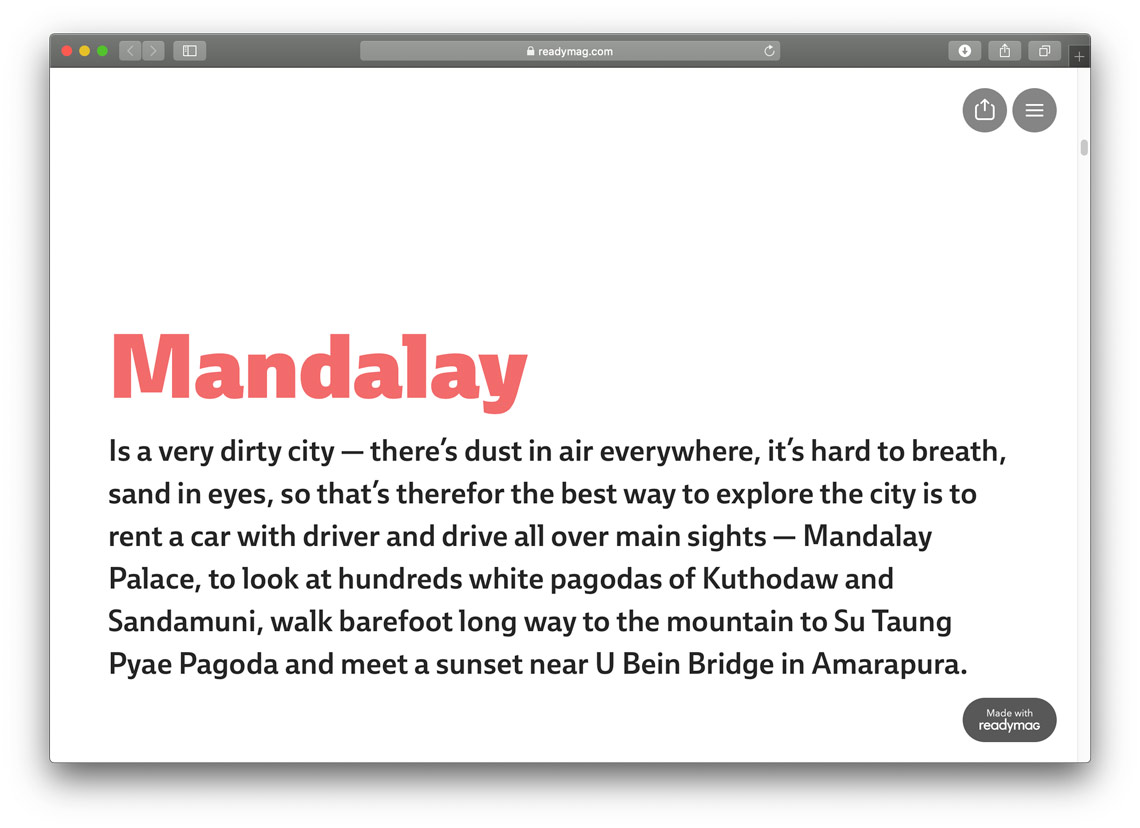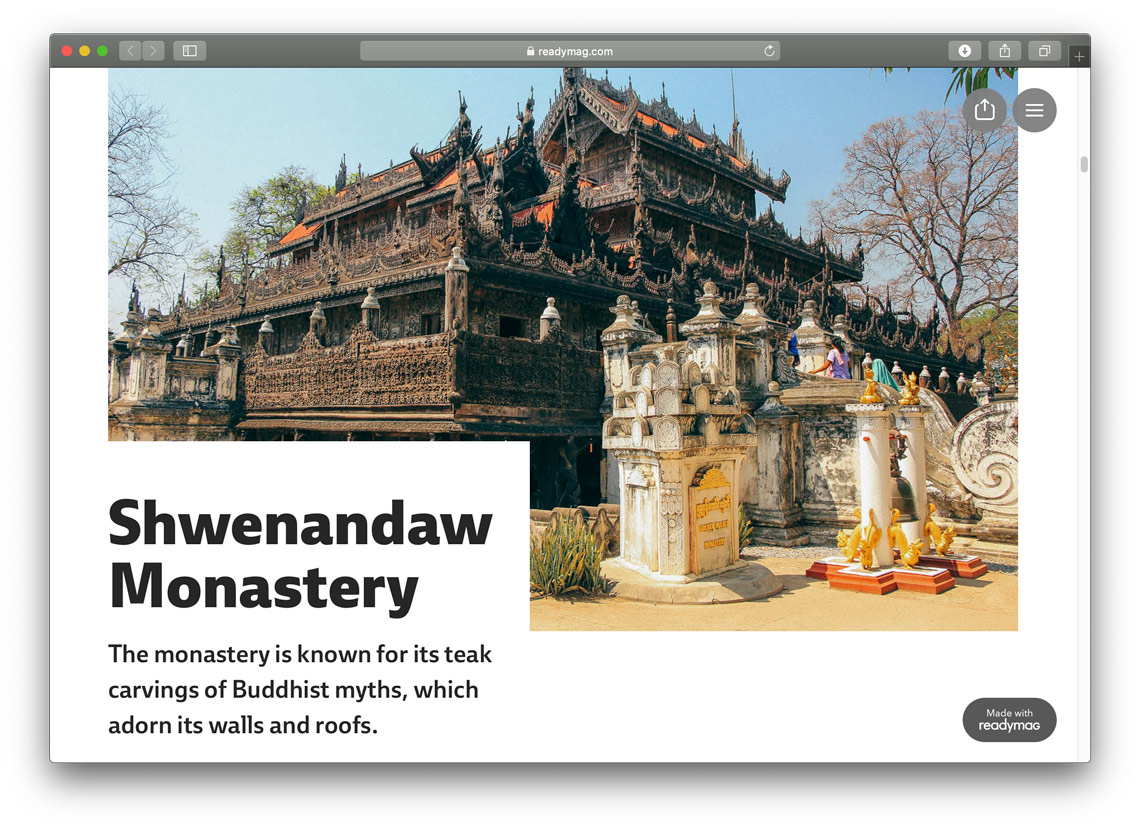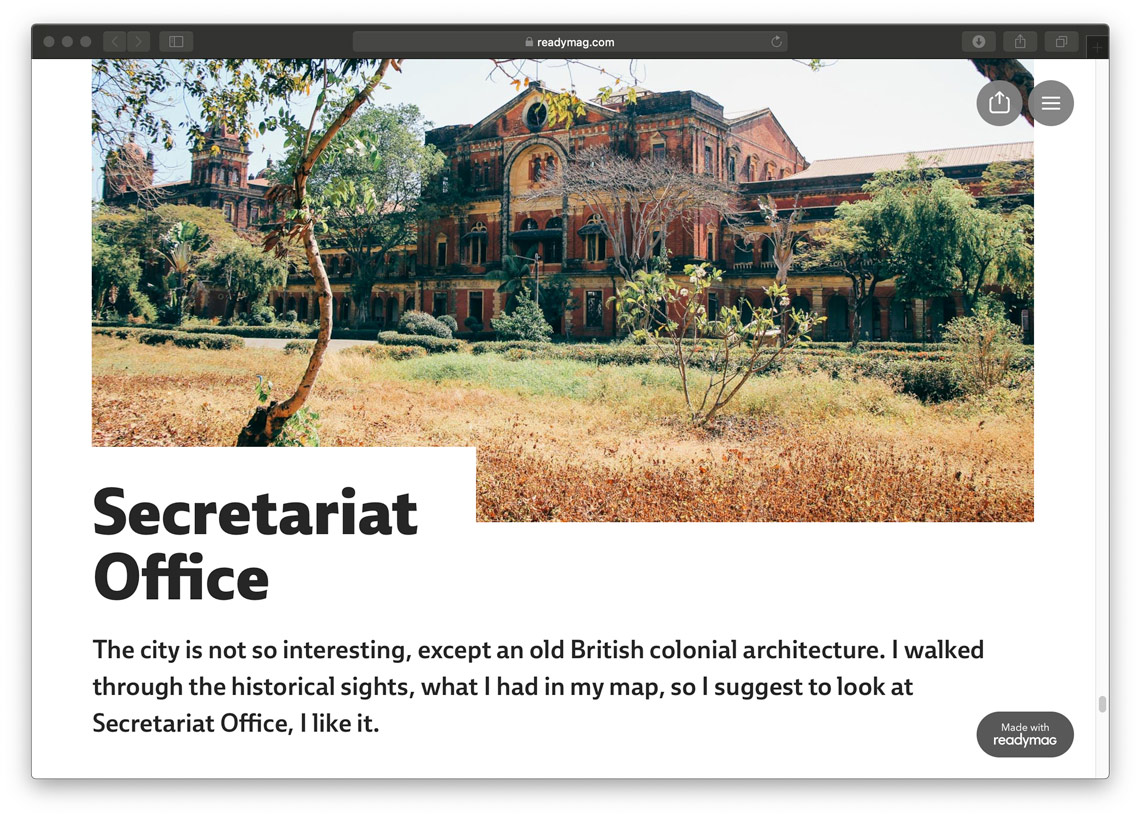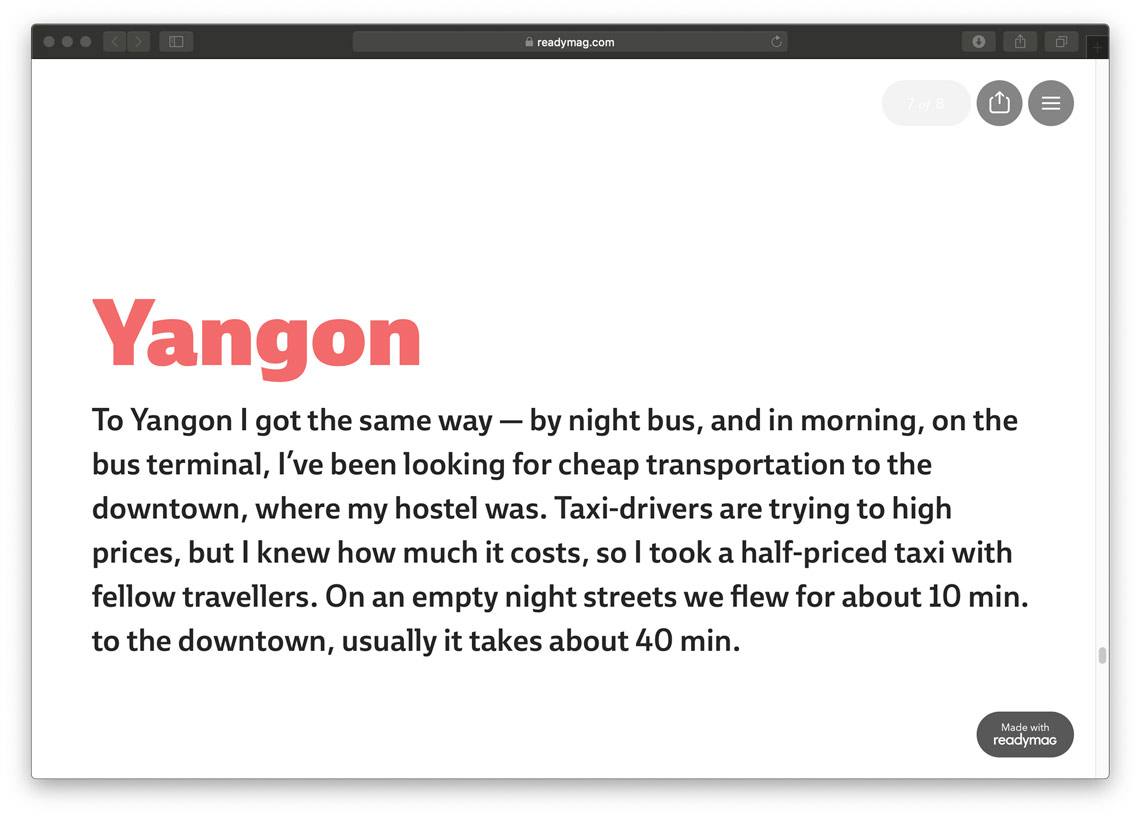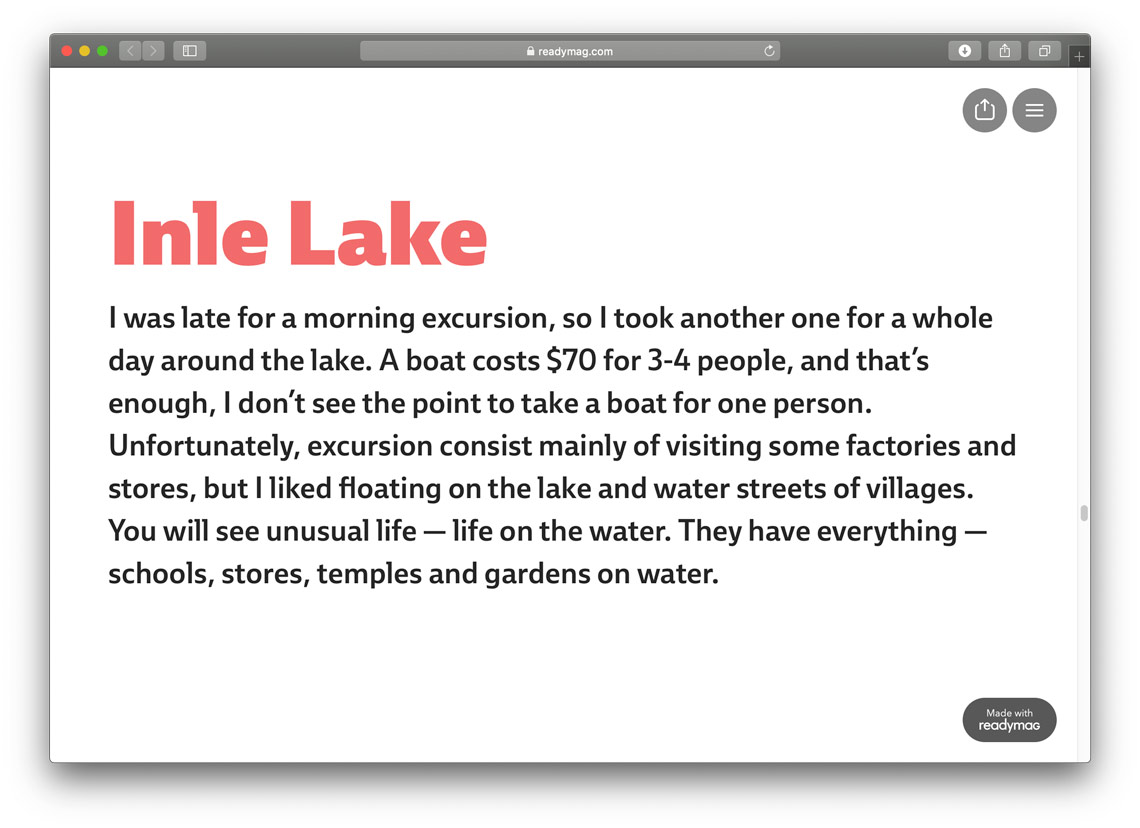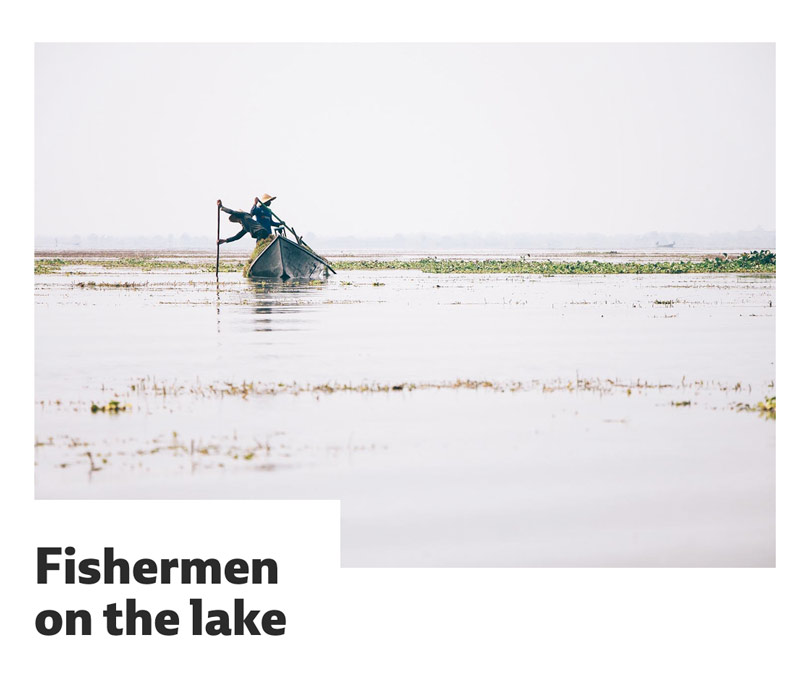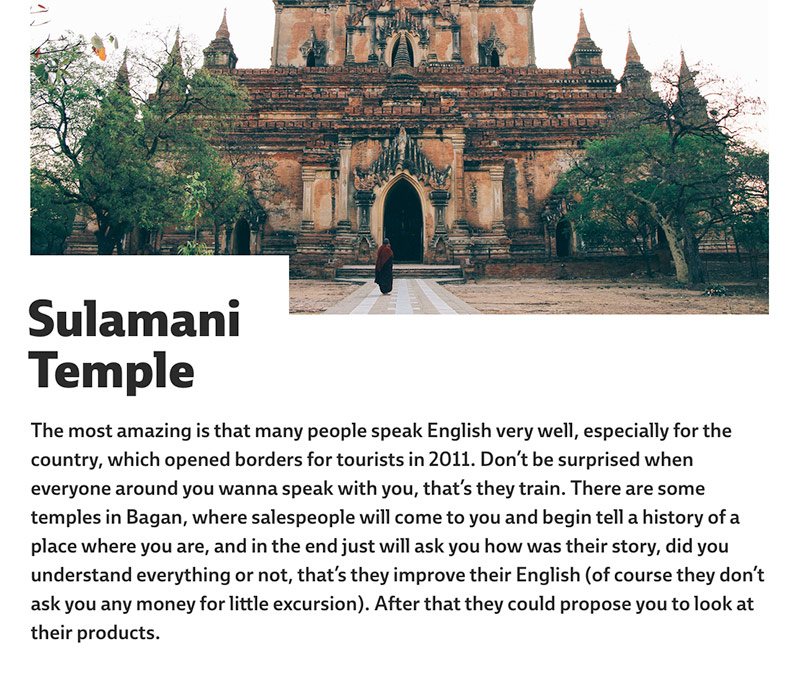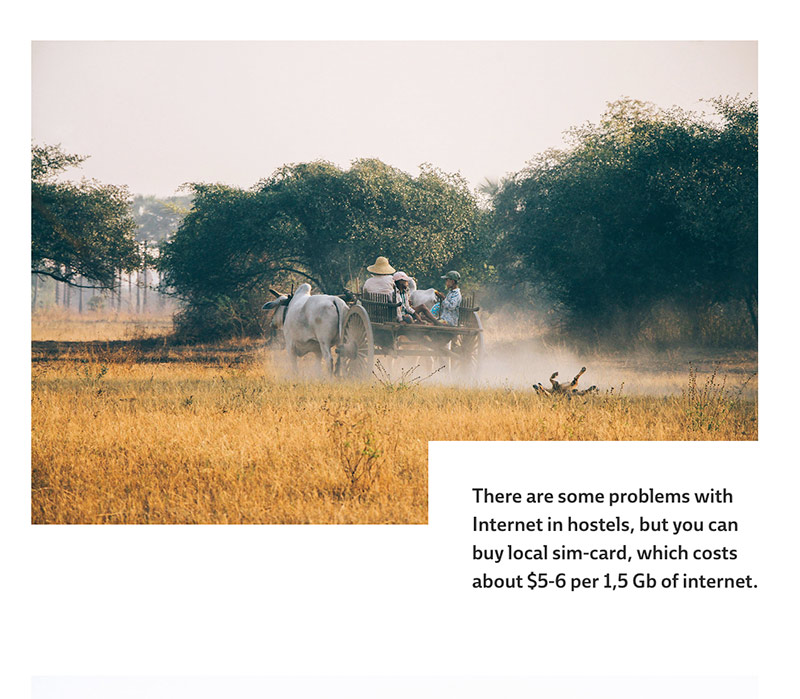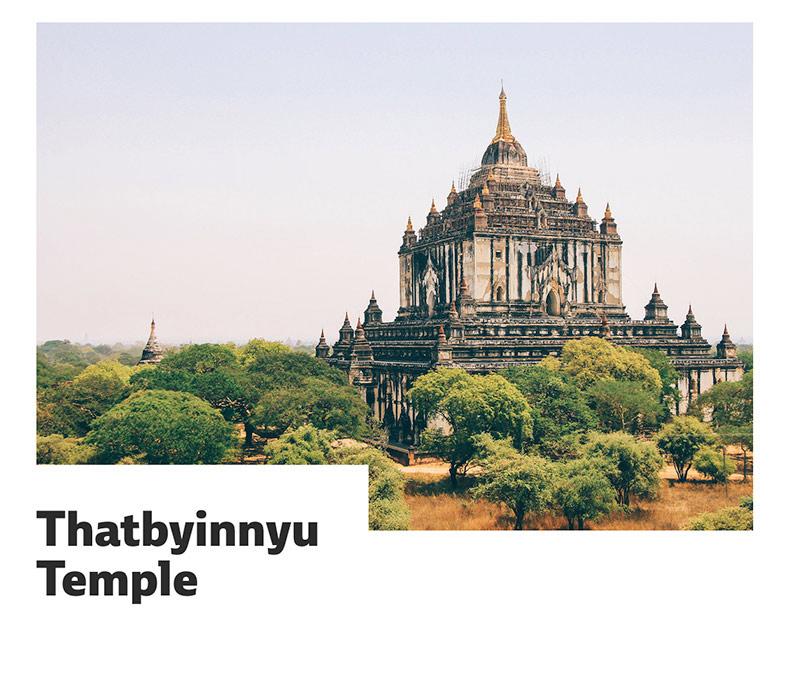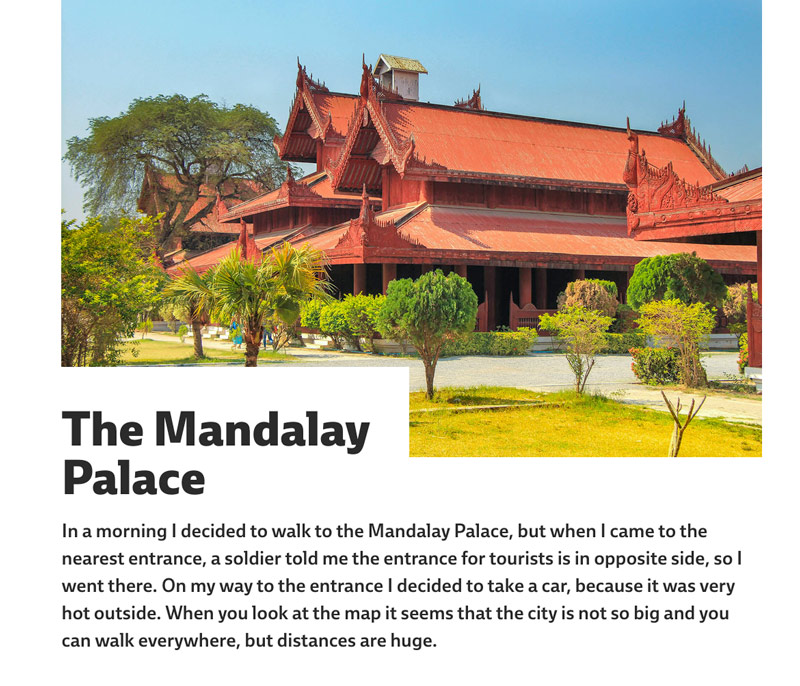
Myanmar travel diary
Ebony in use in Dinis Bazgutdinov’s Myanmar travel diary.
Ebony is being used in Russian designer and traveller Dinis Bazgutdinov’s travel diary of Myanmar.
A humanist sans like Ebony forms a perfect contrast for Bazgutdinov’s stunning and somewhat ethereal photography, combined with the site’s clear design. Simplicity rules the day: pale colour palettes, large titles, clear directions, and hints of deeper text carry the reader through the sights and feelings of the area.